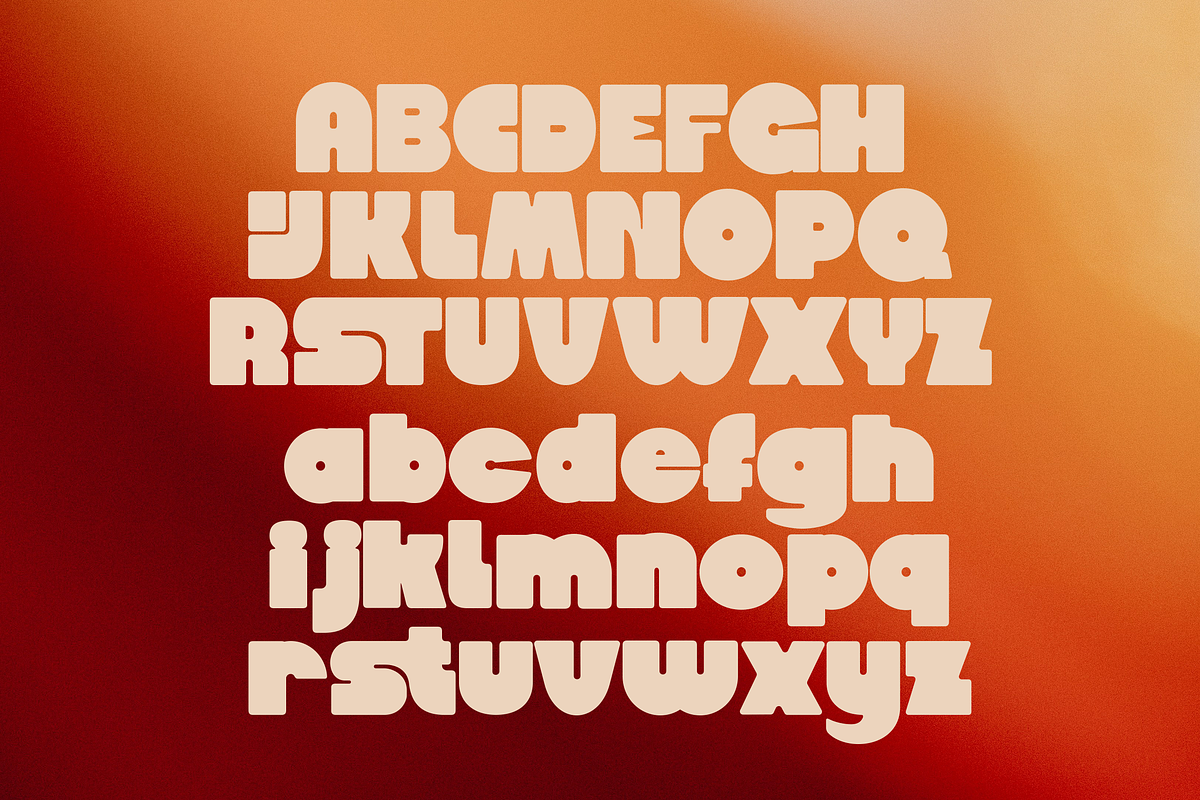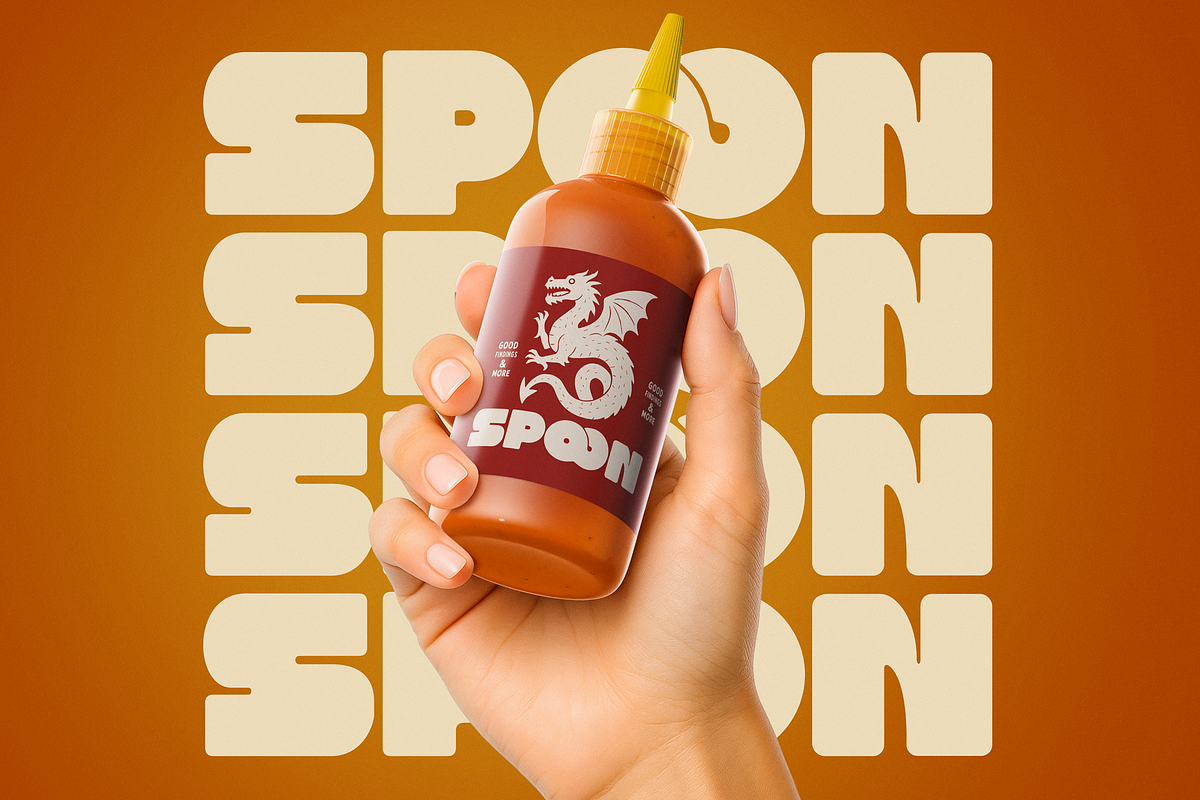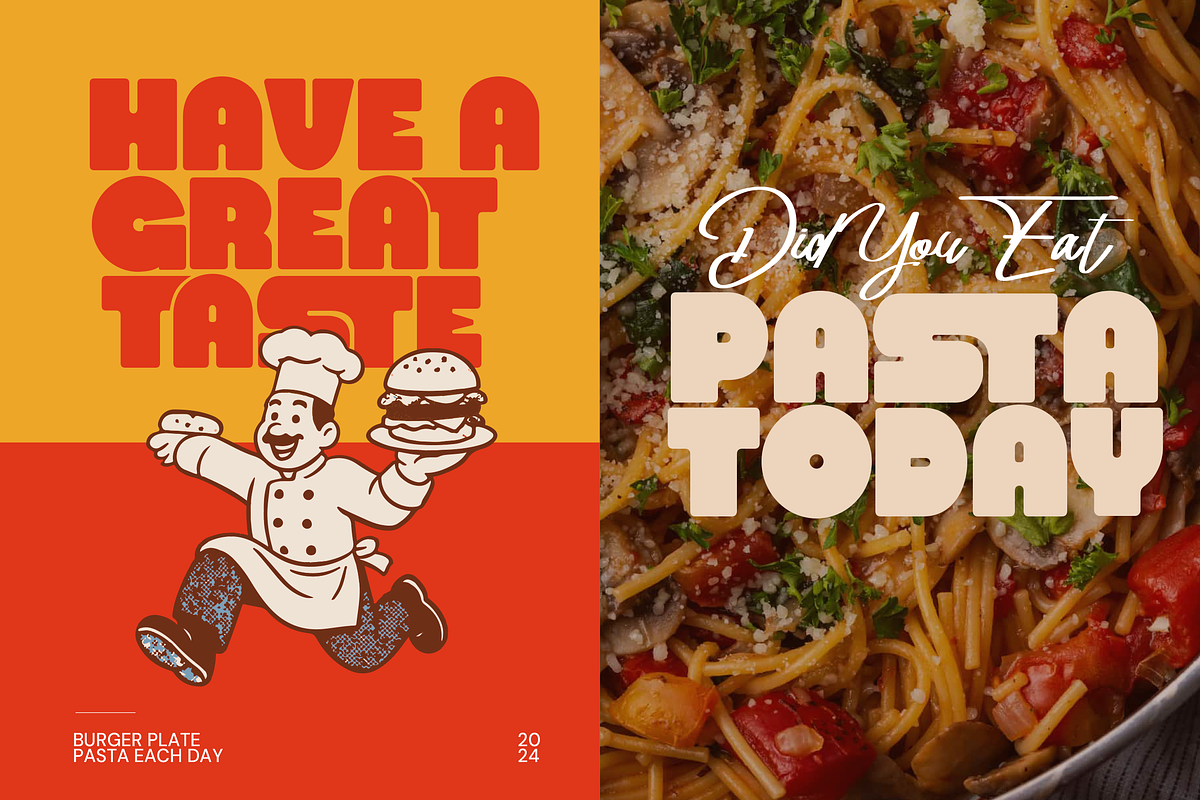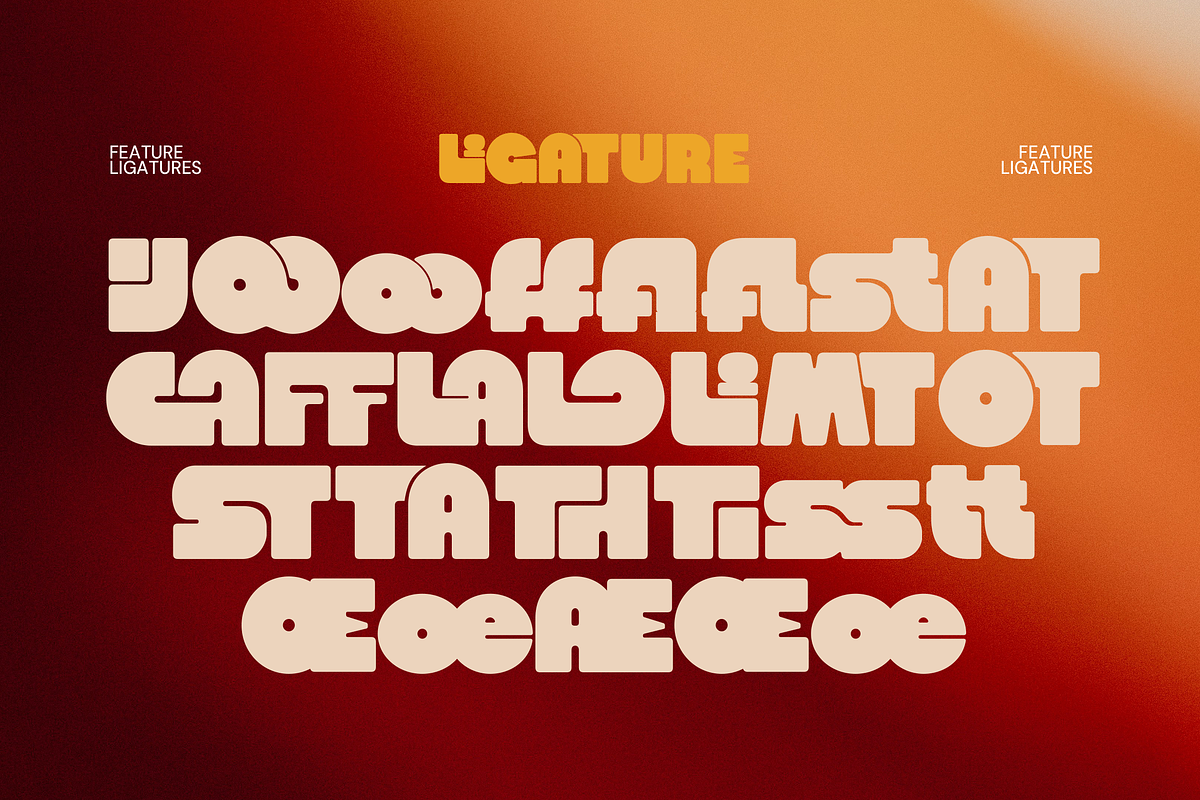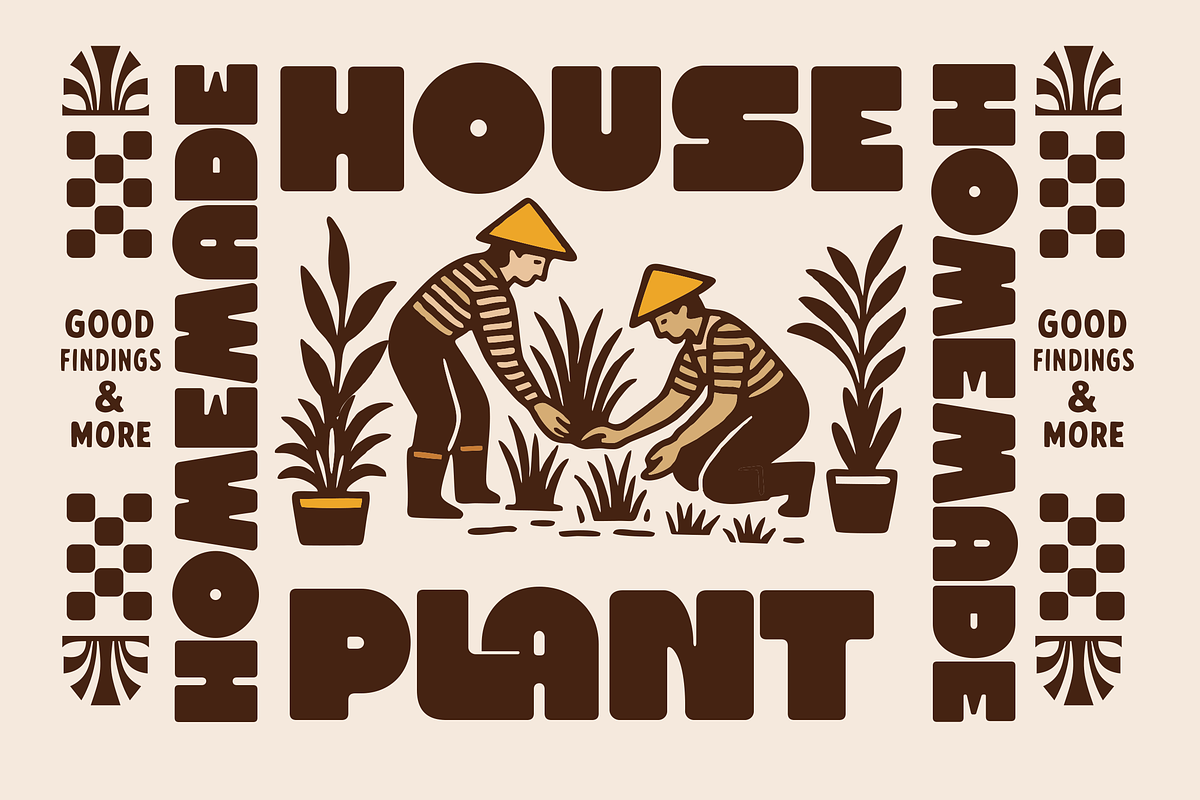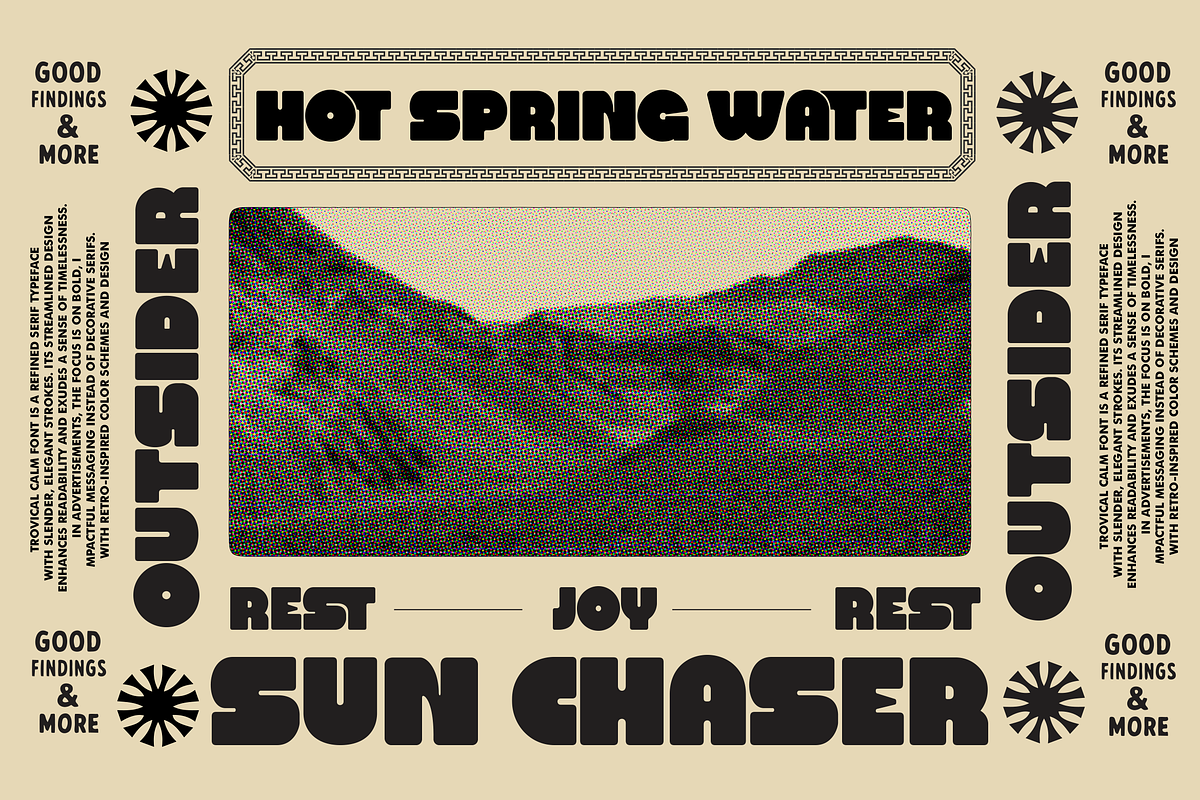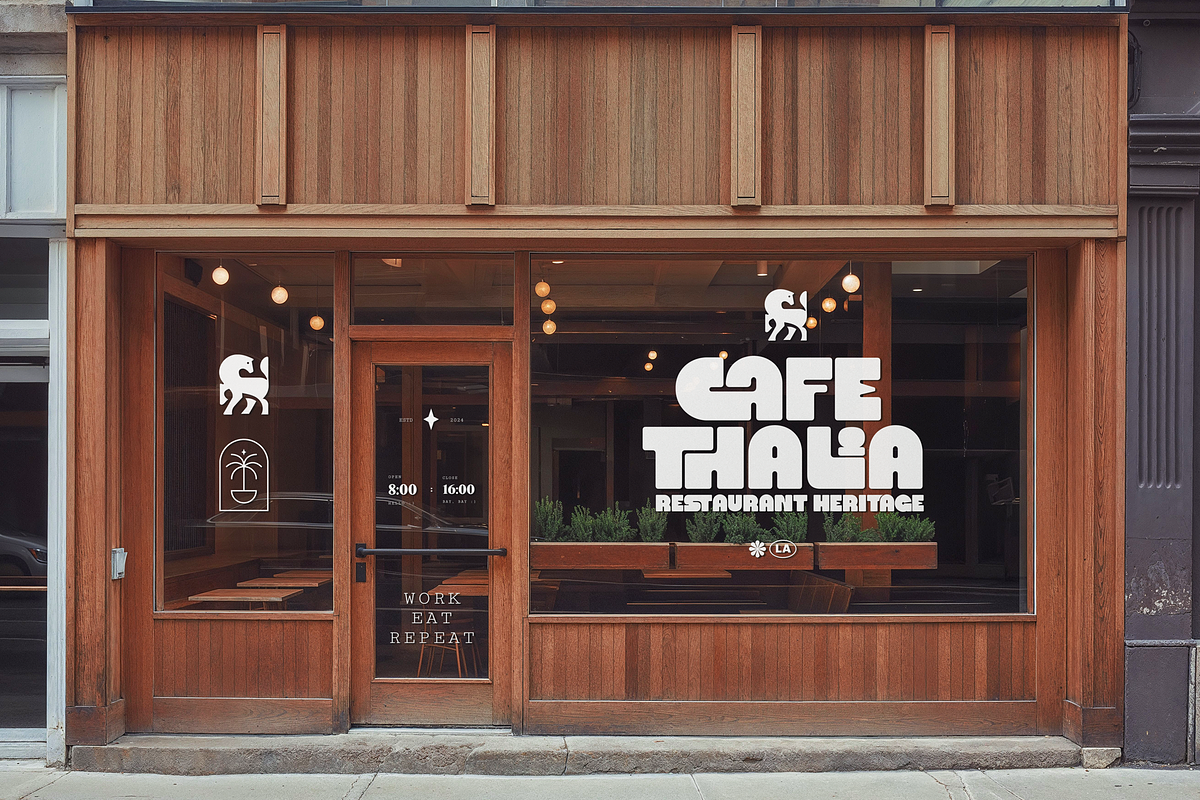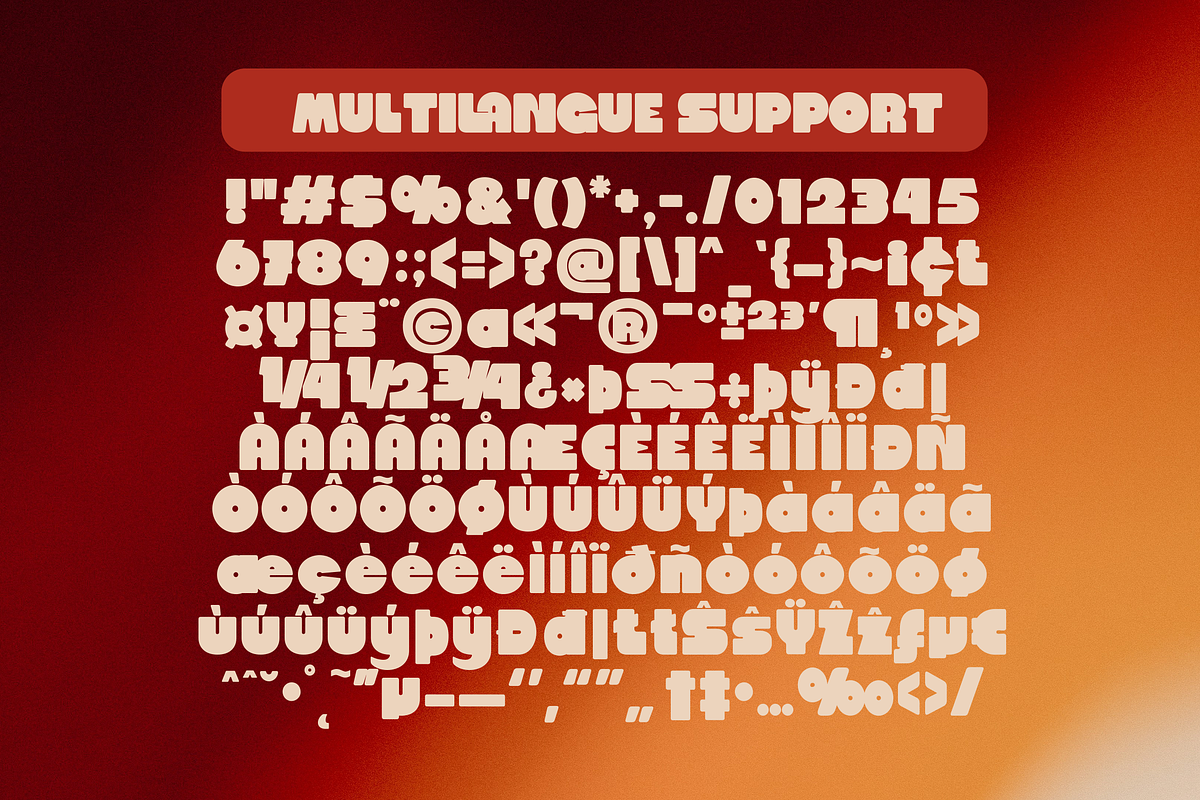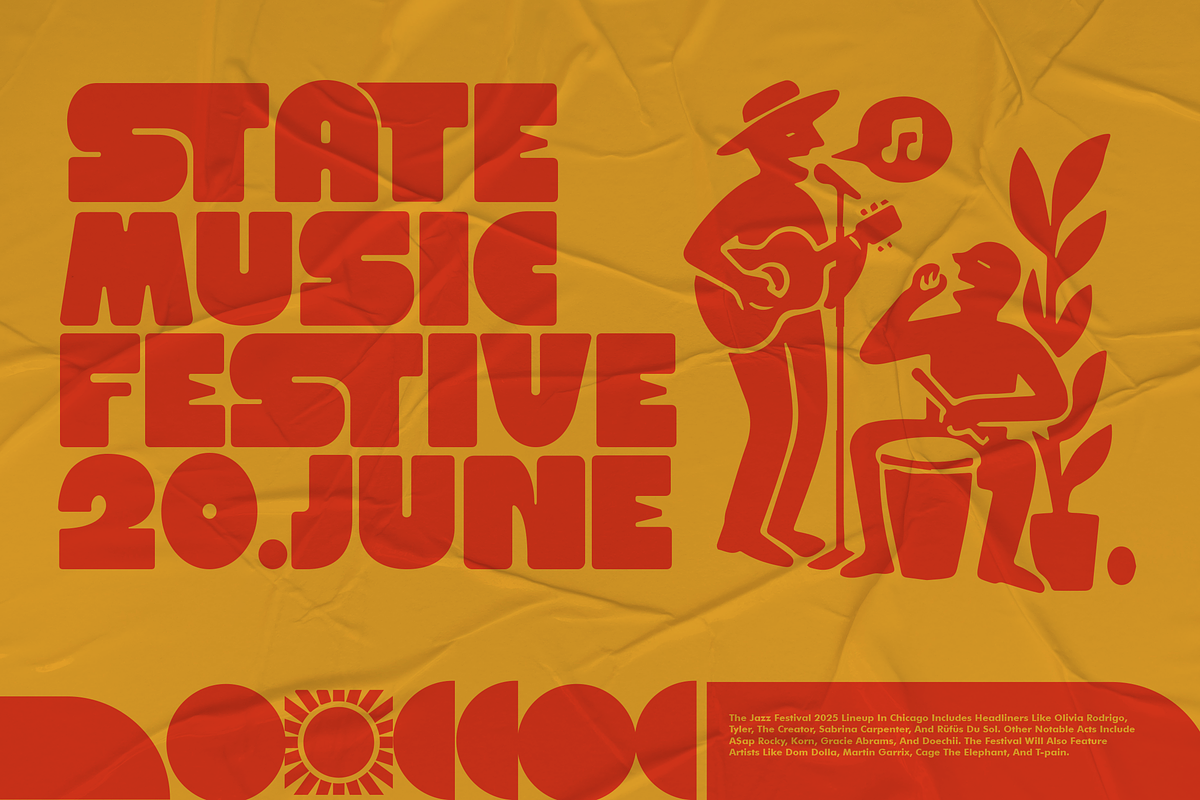
The Loca – Bold Retro Block Typeface
Introducing The Loca, a bold retro block typeface that captures the essence of 70s sunshine and street culture. With its chunky shapes, rounded corners, and playful letterforms, this font brings a vibrant attitude and nostalgic charm to any design.
- Uppercase Letters (A–Z)
- Numerals (0–9)
- Basic Punctuation
- Multilingual Support (Latin Simple)
The Loca is designed to stand out. Whether you’re working on a funky logo or an eye-catching headline, this typeface delivers maximum impact with a touch of retro fun.